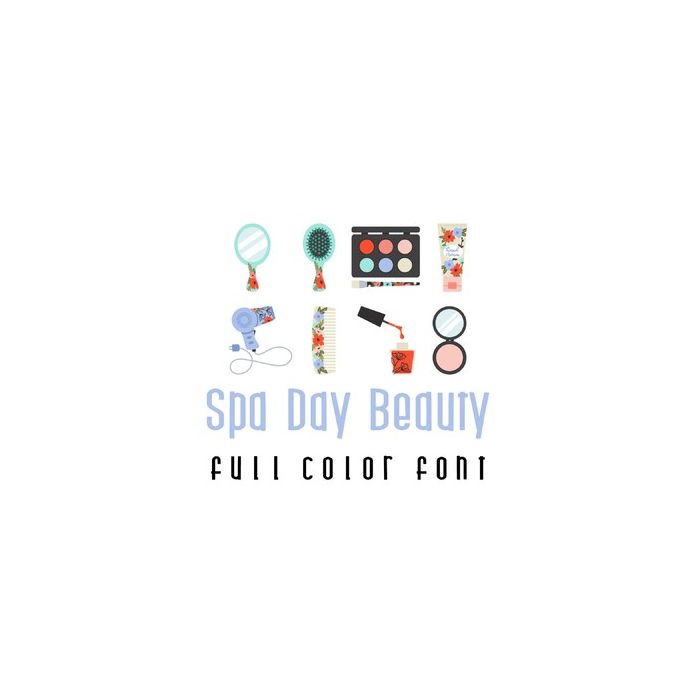
This adorable full color doodlebat font features beautiful floral styled makeup and beauty items. Perfect for cards, crafts, gifts, decor, scrap book pages, planner stickers and more!